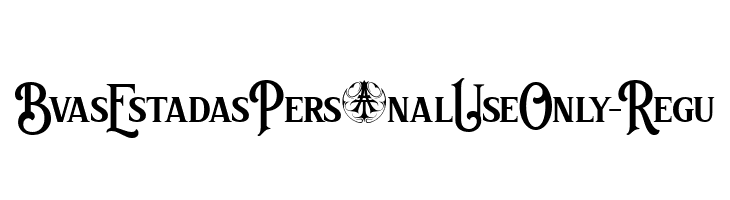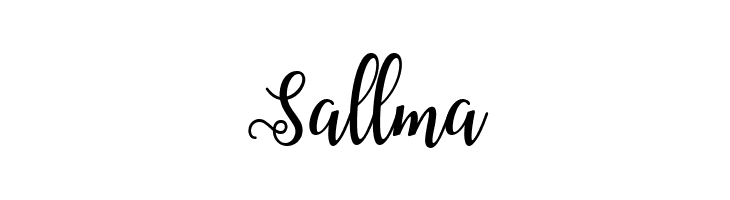
An elegant script font with flowing, cursive letters and ornate uppercase characters.
A bold, decorative serif font with intricate swirls and embellishments.
A decorative font with ornate swirls and flourishes, perfect for artistic projects.
An ornate and decorative font with high contrast and intricate flourishes.
An ornate and decorative font with intricate curves and flourishes.
A bold serif font with high contrast and sharp serifs, ideal for impactful headlines.
A dripping, horror-themed font ideal for spooky designs.
A vintage, typewriter-style font with a rustic, distressed appearance.
A playful and whimsical font with bold, flowing letterforms and dynamic strokes.
An elegant script font with decorative swirls and flourishes.